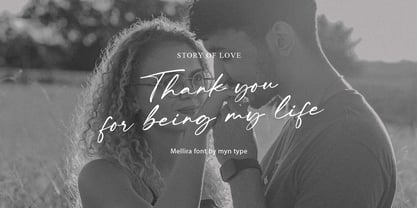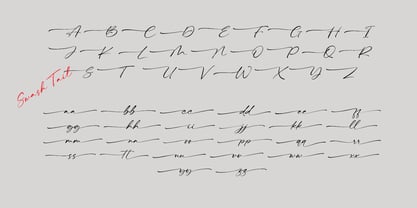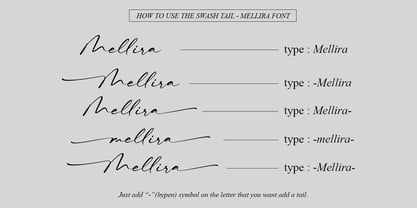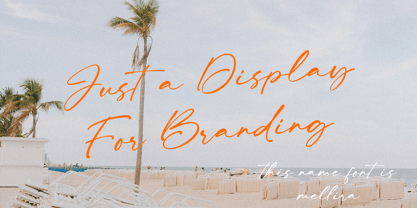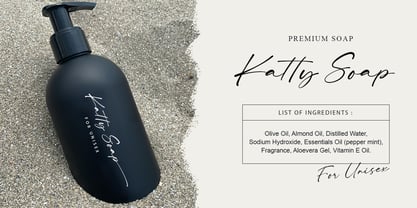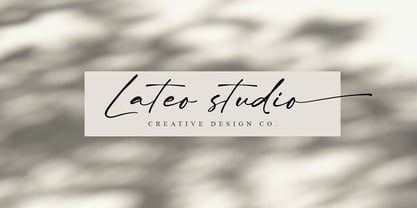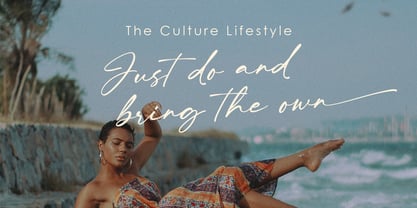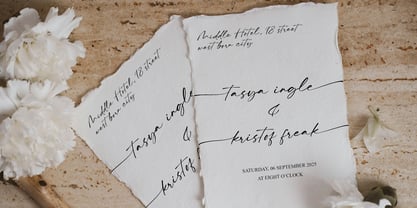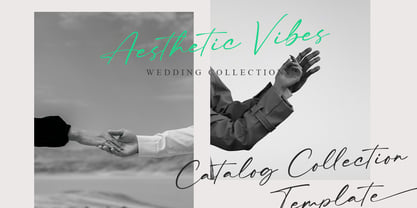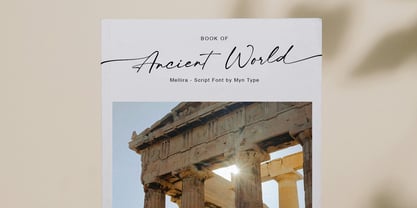
Mellira
by Myn Type
The Mellira Font Family was designed by Suyuti Amien and published by Myn Type. Mellira contains 1 styles. More about this family
Discover the perfect blend of elegance and authenticity with Mellira Font, a beautifully crafted script font that exudes a clean, handwritten touch. Designed to capture the charm of natural handwriting, this font brings sophistication and warmth to any project.
With its combination of elegance flair and creativity with stunning swashes, perfect for making your text stand out. Ideal for wedding invitations, branding, quotes, logos, greeting cards, and more.
HOW TO USE THE SWASH :
Add "-" (hyphen symbol) on the letter that you want give a tail, (for more detailed, see on preview image in page 13).
Designers: Suyuti Amien
Foundry: Myn Type